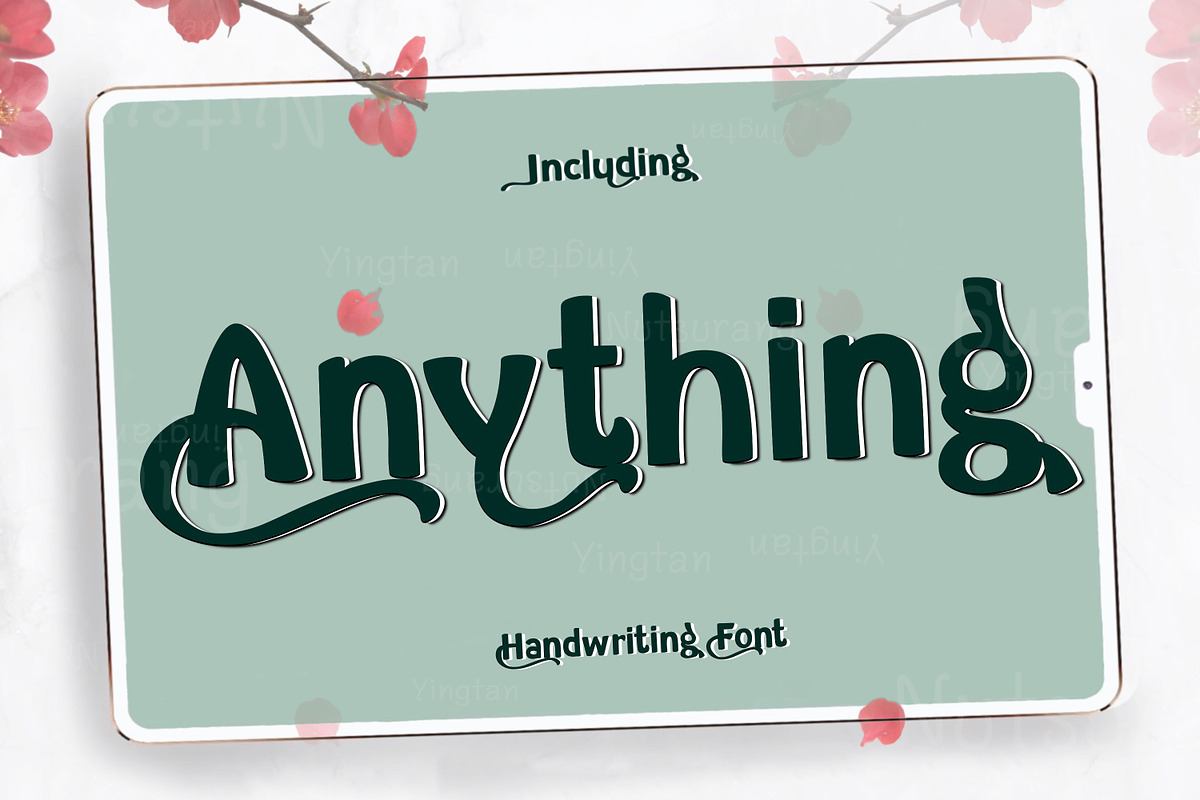
Anything Fonts Free Download
Anything Fonts Free Download is a playful and expressive display typeface designed to add personality and creativity to any project. With its hand-lettered style, casual flow, and slightly quirky charm, this font is perfect for greeting cards, inspirational quotes, logos, social media posts, and branding that aims to feel fun, youthful, and spontaneous.
Its brush-inspired strokes give it a handcrafted, artistic feel that’s both eye-catching and approachable. Whether you're designing for lifestyle brands, creative businesses, or personal projects, Anything Fonts offers just the right mix of boldness and friendliness.
Add creative freedom and a touch of flair to your design with the charm of Anything Fonts.